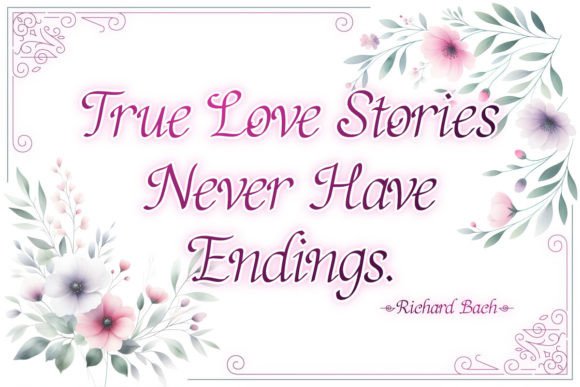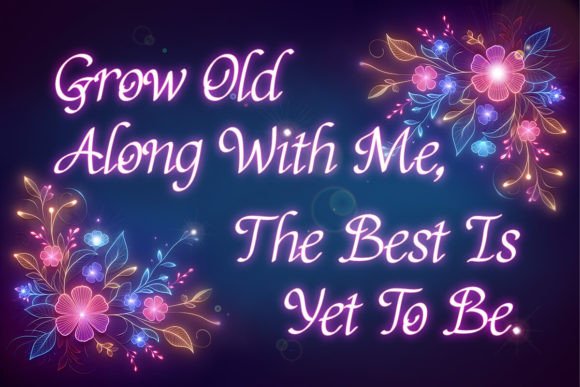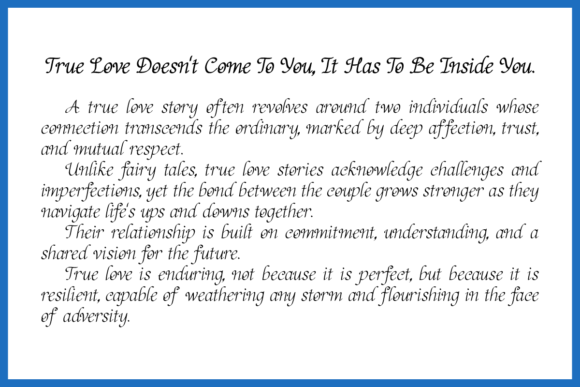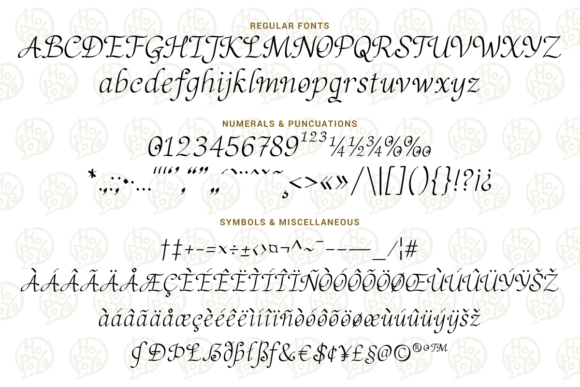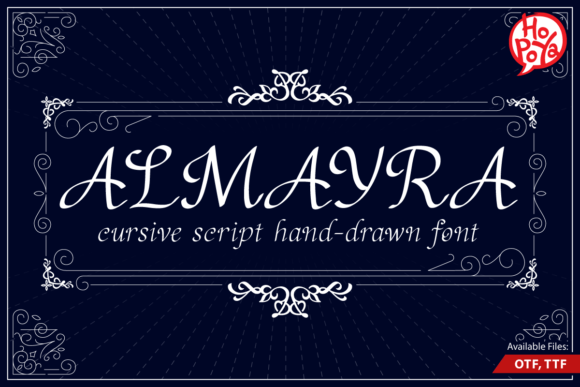
Introducing Almayra Font: A Beautiful Cursive Script for Modern Design
In the world of typography, fonts play a crucial role in conveying the tone and personality of a design. For designers and crafters looking for a unique and elegant font, Almayra Font is an excellent choice. This stunning cursive script hand-drawn font style is not only comfortable to read but also remains relevant for modern use. In this article, we’ll explore the features and benefits of Almayra Font, and how it can elevate your design projects.
What is Almayra Font?
Almayra Font is a beautifully crafted cursive script font that exudes elegance and sophistication. Its hand-drawn style gives it a personal touch, making it perfect for designs that require a human feel. The font is designed to be comfortable to read, making it suitable for a wide range of applications, from storybooks to greeting cards, quotes, and more.
Key Features of Almayra Font
- Uppercase and Lowercase Multilingual Letters: Almayra Font includes a comprehensive set of uppercase and lowercase letters, covering multiple languages. This feature makes it an excellent choice for designers working on international projects or those who want to add a touch of personality to their designs.
- Numbers, Symbols, and Punctuation: The font also includes a range of numbers, symbols, and punctuation marks, providing everything you need to create stunning designs.
- Cursive Script Style: Almayra Font’s cursive script style is both elegant and legible, making it perfect for designs that require a touch of sophistication.
- Hand-Drawn: The font’s hand-drawn style gives it a unique and personal feel, setting it apart from more traditional fonts.
Use Cases for Almayra Font
Almayra Font is an incredibly versatile font that can be used in a variety of design projects. Here are some use cases to get you started:
- Story Books: Almayra Font’s elegant cursive style makes it perfect for storybooks, children’s books, and other literary projects.
- Greeting Cards: The font’s warm and inviting feel makes it ideal for greeting cards, invitations, and other social stationery.
- Quotes and Posters: Almayra Font’s cursive style adds a touch of sophistication to quotes and posters, making them perfect for social media, advertising, and marketing campaigns.
- Branding and Packaging: The font’s unique and elegant style makes it suitable for branding and packaging projects, particularly for luxury brands or those in the creative industry.
Why Choose Almayra Font?
With so many fonts available, why choose Almayra Font? Here are just a few reasons:
- Unique Style: Almayra Font’s hand-drawn cursive script style sets it apart from more traditional fonts, providing a unique and distinctive look.
- Legibility: Despite its elegant style, Almayra Font remains comfortable to read, making it suitable for a wide range of applications.
- Multilingual Support: The font’s multilingual support makes it an excellent choice for designers working on international projects.
Almayra Font is a stunning cursive script hand-drawn font style that offers a unique and elegant solution for designers and crafters. Its comfortable readability, multilingual support, and comprehensive character set make it suitable for a wide range of design projects. Whether you’re working on a storybook, greeting card, or branding project, Almayra Font is an excellent choice. With its ease of use and versatility, it’s no wonder that Almayra Font is becoming a popular choice among designers. So why not give it a try and see how it can elevate your designs?